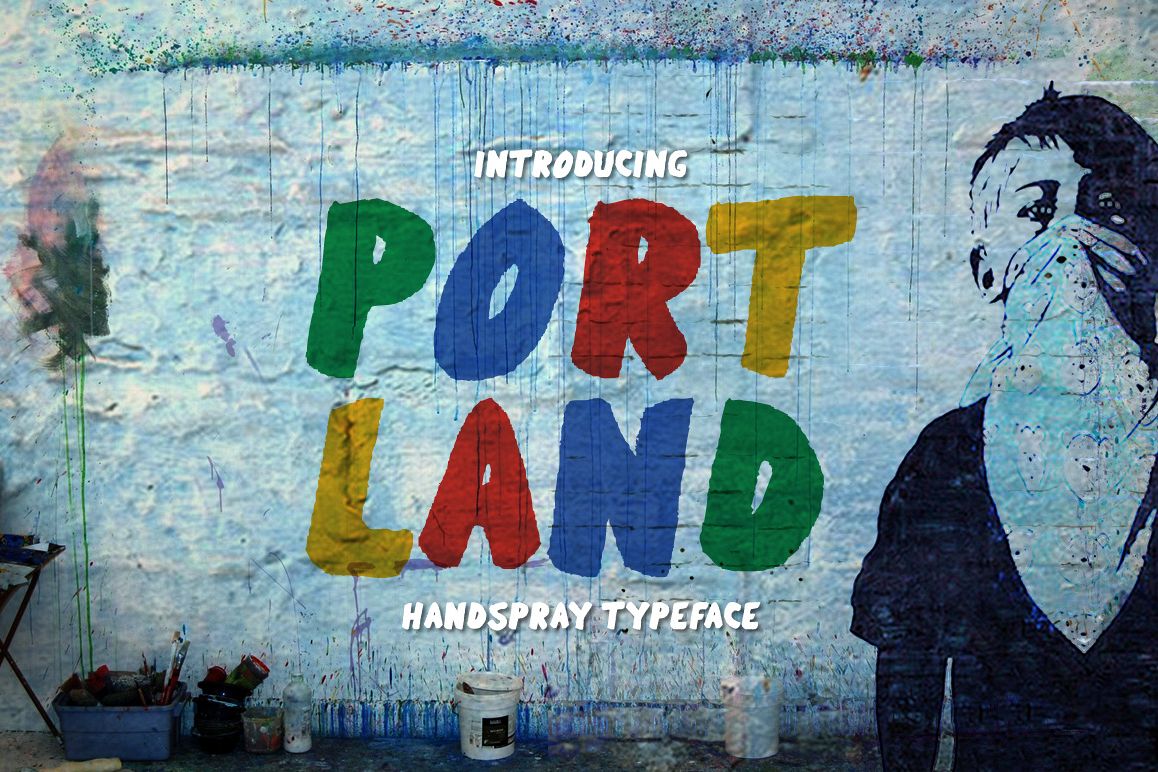
Portland
Portland is a modern uppercase font (without lowercase). It's a hand brushed script created with a brush and ink. Enough of the character to keep that inky look -- those are the Rough fonts. This font will perfect for many different project ex: quotes, logo, blog header, poster, wedding, branding, apparel, letter, etc...
• Uppercase Only (without lowercase)
• Alternate Uppercase (A, B, D, I, O, P, Q, R)
• Number
• Punct
• Ligature Uppercase (FF, LL, TT)